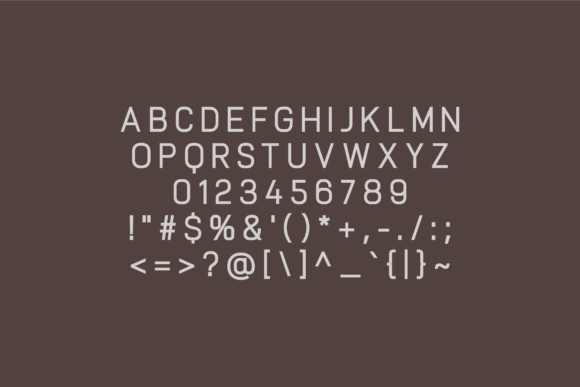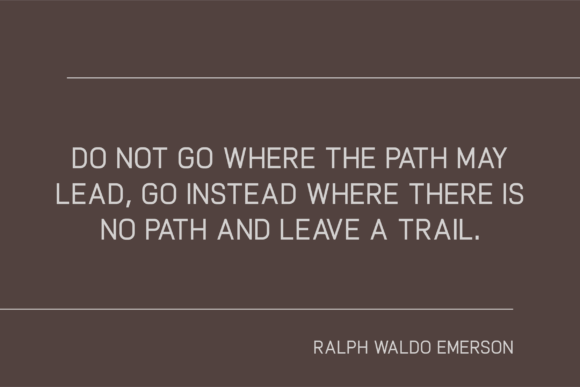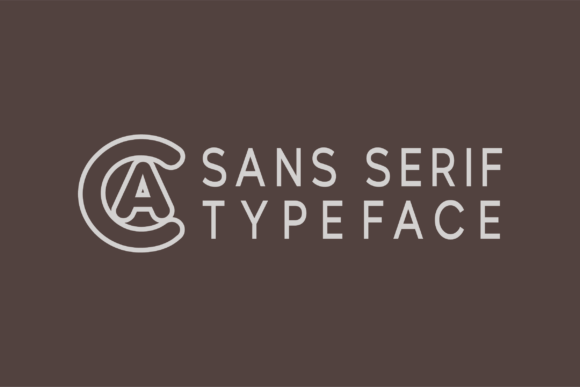
Introduction to Lilacdream Font Font
Fonts play a crucial role in design, and the Lilacdream Font font is a typeface that brings both character and versatility to any project. Whether you’re working on a branding project, a website, or a print design, the Lilacdream Font font offers a unique style that can elevate your work.
Introducing Lilacdream, a modern, classy sans serif typeface.
A sans serif typeface that contains upper characters, number 0-9 and a range of punctuation and symbols An extremely versatile font, perfect for logos, weddings, invitations, quotes, advertisements, print, magazines, and more.
Key Features of Lilacdream Font Font
Why Choose Lilacdream Font Font?
The Lilacdream Font font is more than just a typeface – it’s a design tool that helps you communicate your message with style and clarity. Its unique character set and versatile design make it suitable for a wide range of applications, from elegant invitations to bold headlines.
With its carefully crafted letterforms and balanced proportions, the Lilacdream Font font ensures readability and visual appeal across all mediums.
What makes Lilacdream Font font special?
The Lilacdream Font font stands out with its unique design, exceptional readability, and versatility across various design applications.